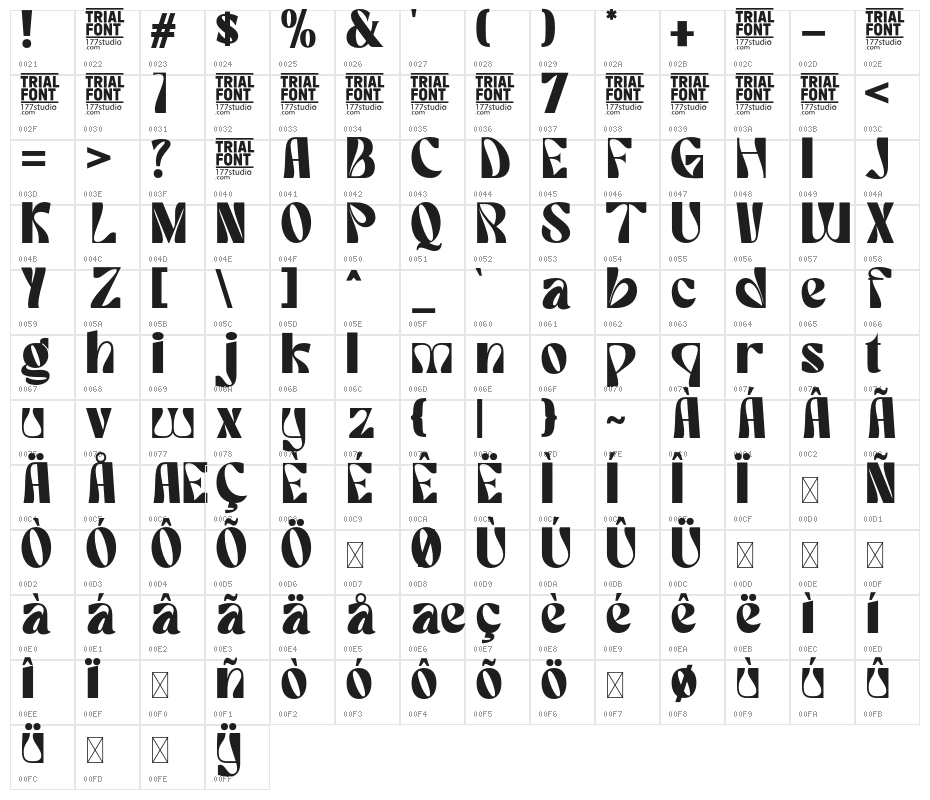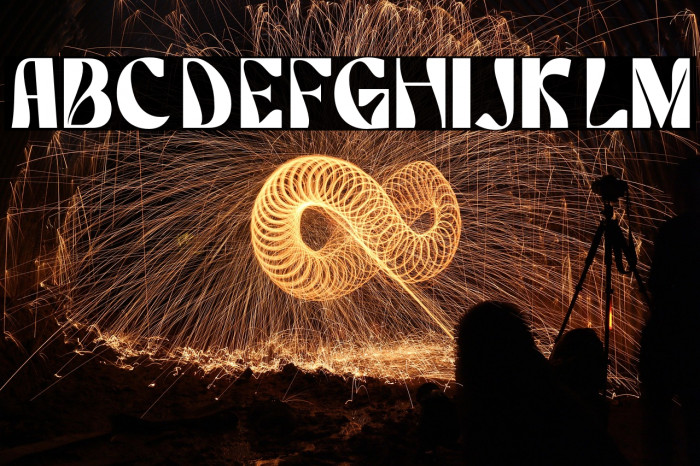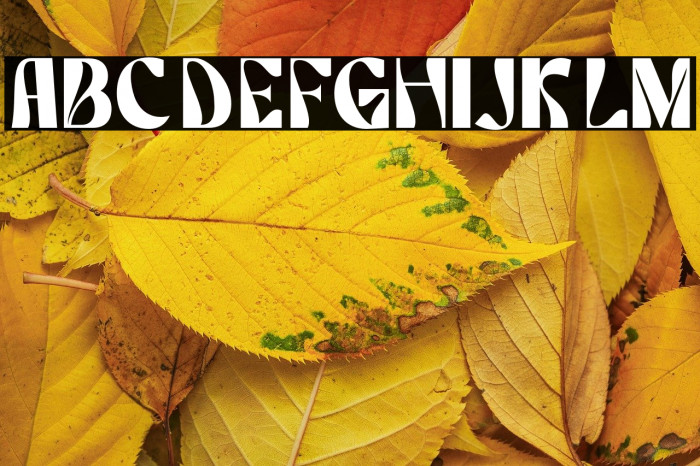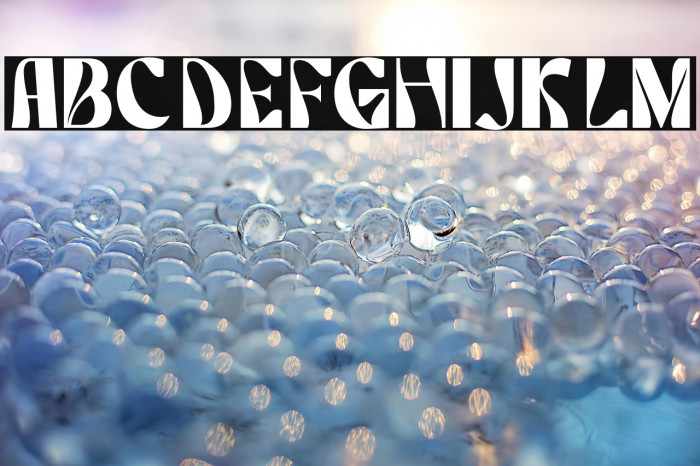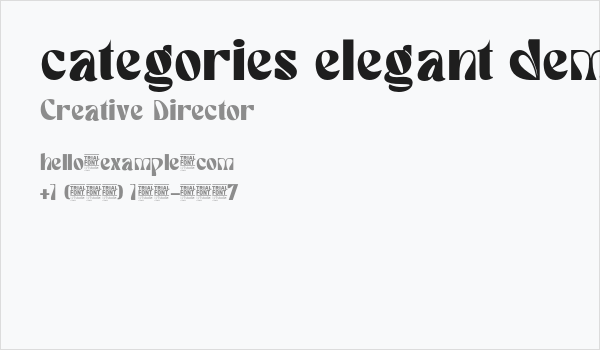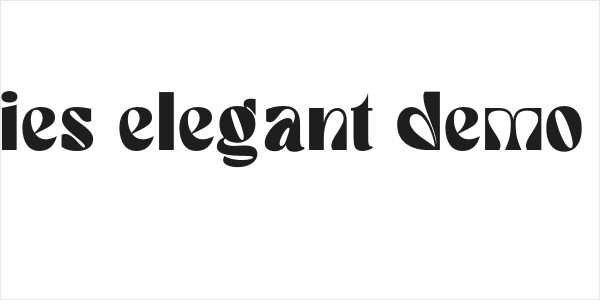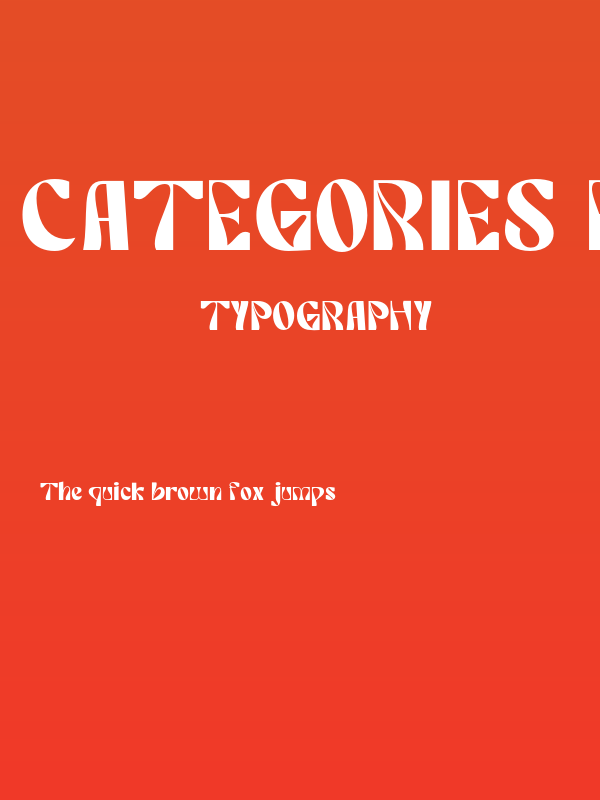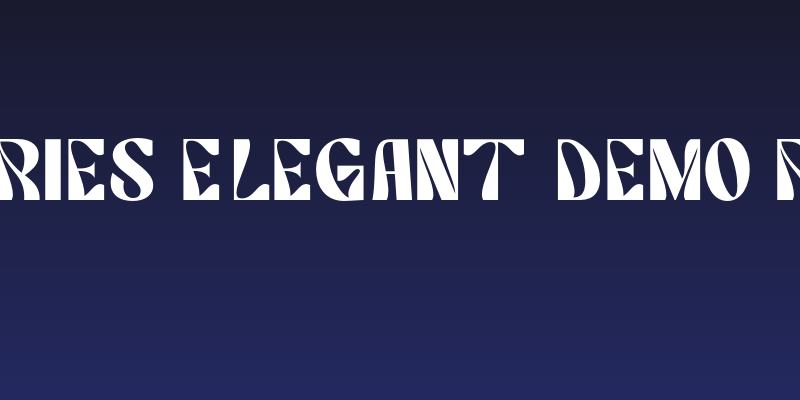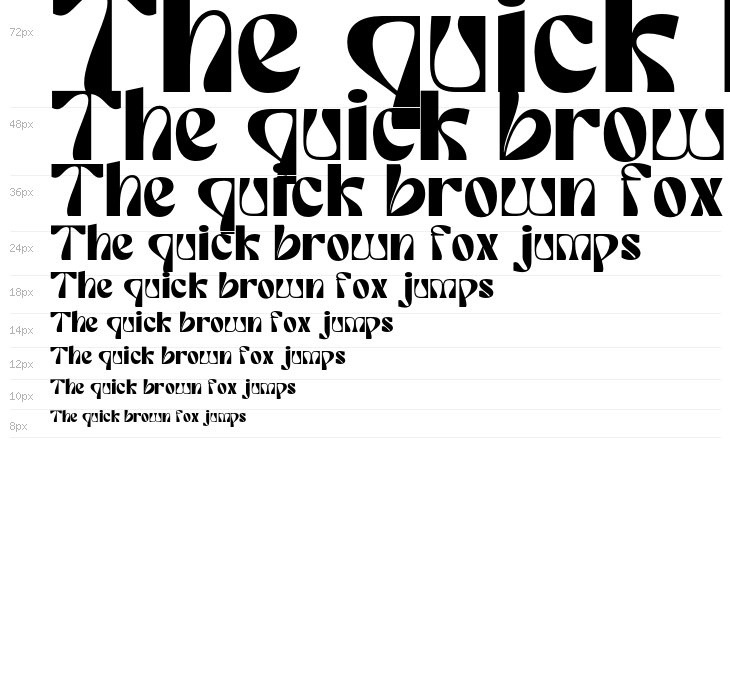
categories elegant demo regular Font
categories elegant demo regular Description
This font features a bold and artistic design with a unique blend of sharp angles and smooth curves. The uppercase letters are striking, with a strong presence that commands attention. The lowercase letters maintain the same boldness, offering a cohesive look across different text sizes. Numbers and special characters are equally distinctive, making them suitable for various creative applications. The font's style is both modern and decorative, ideal for projects that require a touch of elegance and flair.
| Proposed Projects | Ideal for branding, poster design, headlines, and any project that requires a bold, artistic touch. |